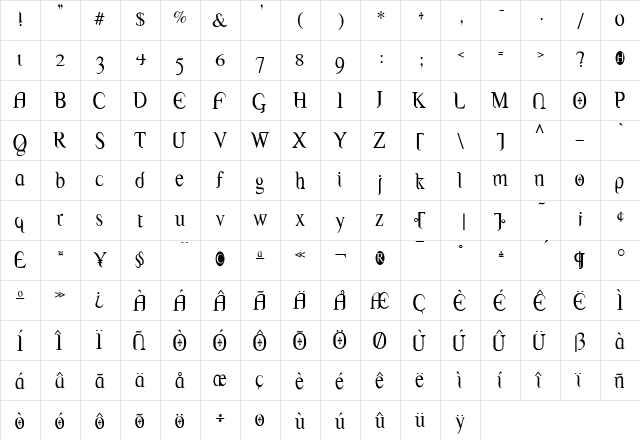
Thessaly Medium
Design Context for Thessaly Typeface
Thessaly offers clean, dependable letterforms without strong stylistic allegiance, making it a practical choice for designers who need flexibility.